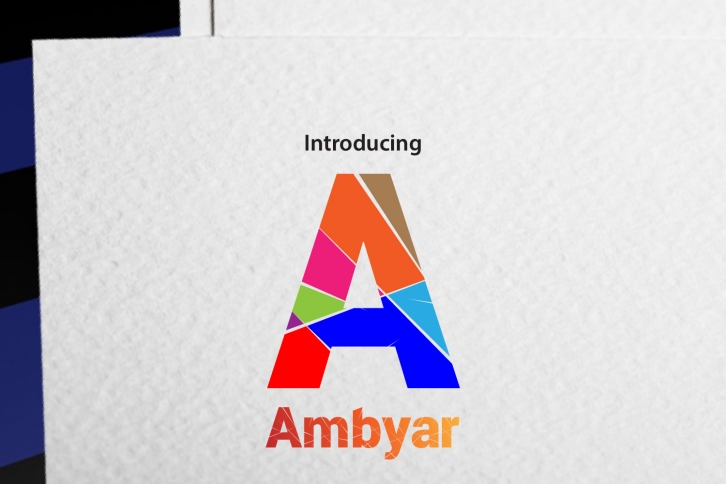
Ambyar is a great font that was designed by daonlyaan. Imagine the amount of combinations you can create using this font! The archive is 21.56 MB and it was released on April 8, 2019. Ambyar looks beautiful on wedding invitations, greeting cards, logos, posters, labels, t-shirt designs, logos, business cards and is perfect for use in ink or watercolor works, fashion, magazines, packaging and food menus, children's books and more!